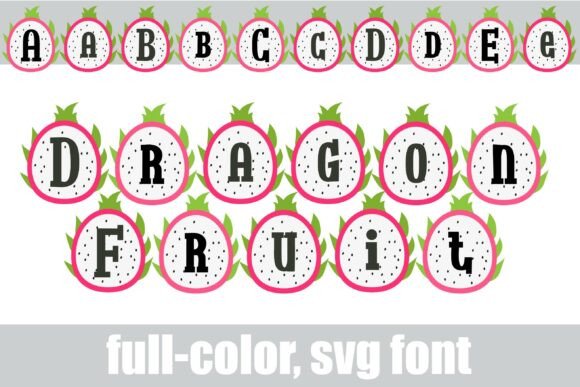
Bringing the Heat with Dragon Fruit Font
I’ll never forget the design struggle I faced when working on a project for a trendy juice bar. My client wanted a font that would transport their customers to a tropical paradise, but I was stuck in a design rut. That’s when I stumbled upon Dragon Fruit Font, and it was love at first sight! ✨
This high-impact, full-color SVG font is inspired by nature’s most vibrant fruit – the dragon fruit. Its bold, clean-lined slab serif letterforms are set inside hand-illustrated dragon fruit slices, complete with neon pink rinds, lush green scales, and realistic black seed textures. It’s the perfect combination of fun, freshness, and exotic flair.
A Tropical-Maximalist Dream
Dragon Fruit Font is more than just a pretty face – it’s a design powerhouse. Its unique framing and tropical-maximalist soul make it the premier choice for:
- Independent juice bar branding
- Exotic fruit market signage
- Summer festival flyers
- High-energy “island-vibe” social media headers
- ✨ Unique and eye-catching design that’s sure to turn heads
- ✅ High-quality, full-color SVG illustrations that bring the font to life
- ✅ Easy to use and customize, even for those without extensive design experience
- ✅ Perfect for a variety of design projects, from branding to social media graphics
While Dragon Fruit Font is an amazing design tool, there are a few things to keep in mind: 🤔
- ⚠️ The font’s bold and colorful design may not be suitable for all design projects or audiences
Dragon Fruit Font comes with a range of OpenType features and glyphs that allow you to customize the font and add unique touches to your design. Some of the features include:
- Stylistic alternates: Switch between different font styles to add variety to your design
- Glyphs: Access a range of additional characters and symbols to enhance your design
The Story Behind Dragon Fruit Font
Dragon Fruit Font was inspired by the vibrant colors and unique texture of the dragon fruit. The designer, a self-proclaimed tropical fruit enthusiast, wanted to capture the essence of this exotic fruit in a font that would bring a touch of fun and freshness to any design project.